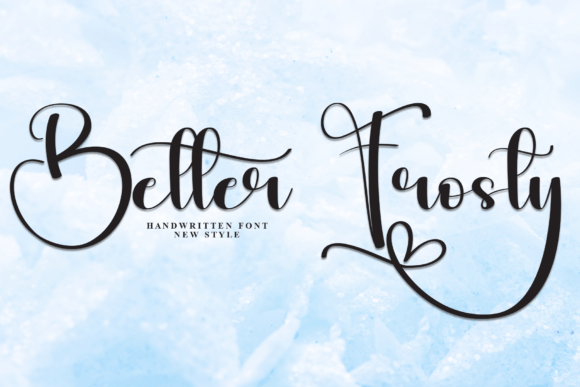
Better Frosty Font: A Charming Handwritten Display Font
In the world of typography, there’s a font that’s sure to capture your heart with its whimsical charm and delightful personality. Introducing the Better Frosty Font, a beautiful handwritten display font that’s designed to add a touch of fun and friendliness to any design project. With its warm and whimsical typography, this font is perfect for creating playful and engaging designs that are sure to leave a lasting impression.
Key Features of Better Frosty Font
- Whimsical Design: The Better Frosty Font boasts a unique and whimsical design that’s perfect for adding a touch of playfulness to your designs.
- Handwritten Style: This font features a beautiful handwritten style that’s reminiscent of personal letters and notes.
- Display Font: The Better Frosty Font is a display font that’s designed to make a statement and grab attention.
- Functional and Fun: This font is not only beautiful, but it’s also highly functional and easy to use.
Uses for Better Frosty Font
The Better Frosty Font is a versatile typography that can be used in a variety of design projects. Here are some ideas to get you started:
- Wedding Invitations: Add a touch of whimsy and romance to your wedding invitations with the Better Frosty Font.
- Greeting Cards: Create personalized and playful greeting cards for any occasion with this charming font.
- Social Media Graphics: Use the Better Frosty Font to create engaging and fun social media graphics that are sure to grab attention.
- Branding: Add a touch of personality to your brand with this unique and memorable font.
Benefits of Using Better Frosty Font
The Better Frosty Font offers a range of benefits that make it the perfect choice for your design projects. Here are some of the advantages of using this font:
- Unique and Memorable: The Better Frosty Font is a one-of-a-kind typography that’s sure to make your designs stand out.
- Easy to Use: This font is highly functional and easy to use, making it perfect for designers of all levels.
- Versatile: The Better Frosty Font can be used in a variety of design projects, from wedding invitations to social media graphics.
- Playful and Engaging: This font is designed to add a touch of playfulness and fun to your designs, making it perfect for engaging your audience.
Tips and Tricks for Using Better Frosty Font
Here are some tips and tricks for getting the most out of the Better Frosty Font:
- Experiment with Colors: Try pairing the Better Frosty Font with different colors to create a unique and eye-catching design.
- Mix and Match: Combine the Better Frosty Font with other fonts to create a unique and interesting design.
- Use it for Headings: The Better Frosty Font is perfect for headings and titles, so try using it to add a touch of personality to your design.
- Add some Whimsy: Don’t be afraid to add some whimsy and personality to your design with the Better Frosty Font.
In conclusion, the Better Frosty Font is a charming and delightful handwritten display font that’s perfect for adding a touch of fun and friendliness to any design project. With its whimsical design, versatile uses, and range of benefits, this font is sure to become a favorite among designers. So why not give it a try and see how it can elevate your designs?